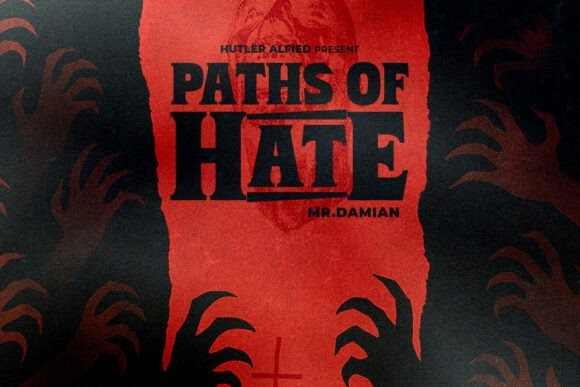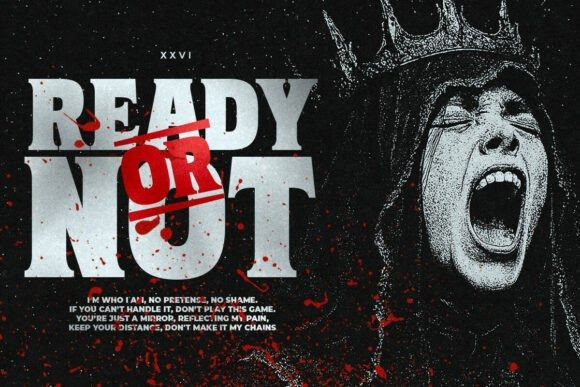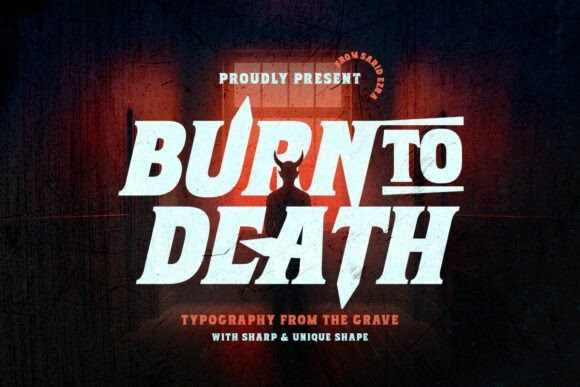
Burn To Death Font
Burn To Death font pushes a heavy, condensed serif skeleton into jagged, blade-like terminals and skewed cuts, giving every letter a carved, menacing feel. Triangular spurs, flared stems, and exaggerated overshoots create motion—perfect for horror posters, game covers, album art, or Halloween branding. The texture reads like scorched metal/stone, so it thrives on dark backgrounds with high contrast. Set it in all caps with tight tracking and generous line spacing; keep body copy in a neutral sans or slab to preserve legibility. Works well with gritty overlays, wide drop shadows, or red-to-orange “ember” gradients. Use at large sizes where its sharp angles and unique silhouettes become the visual hook.